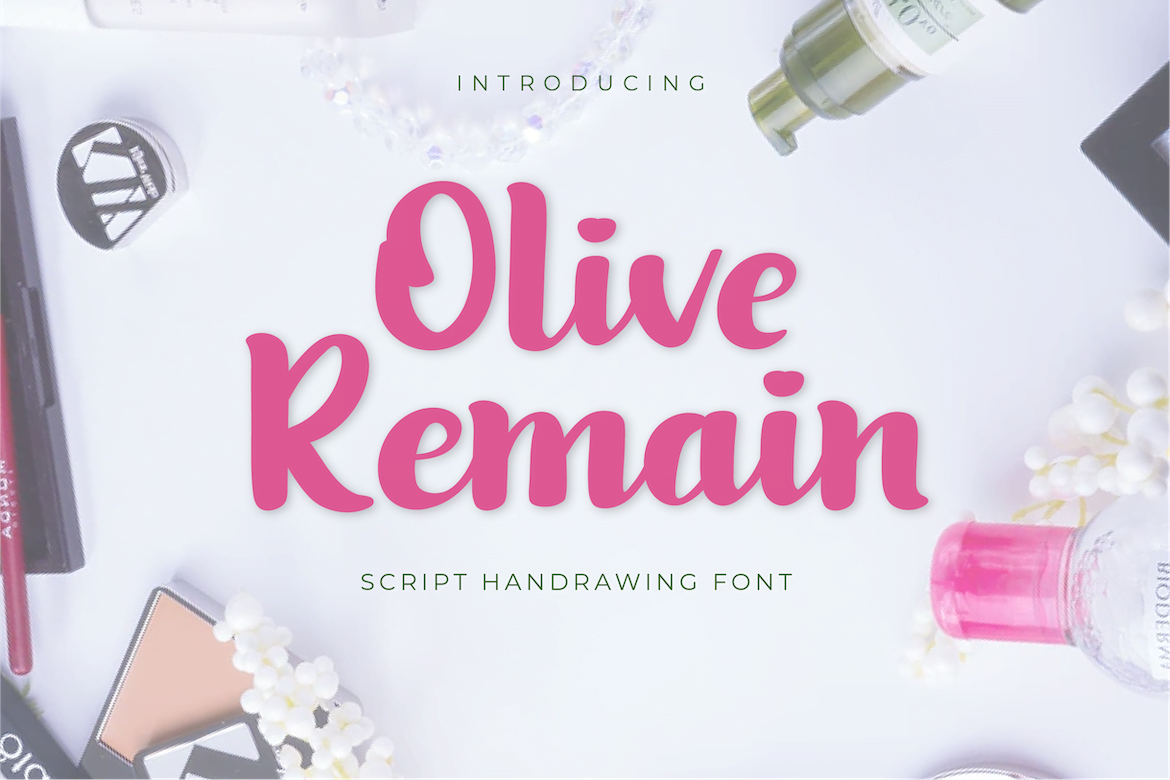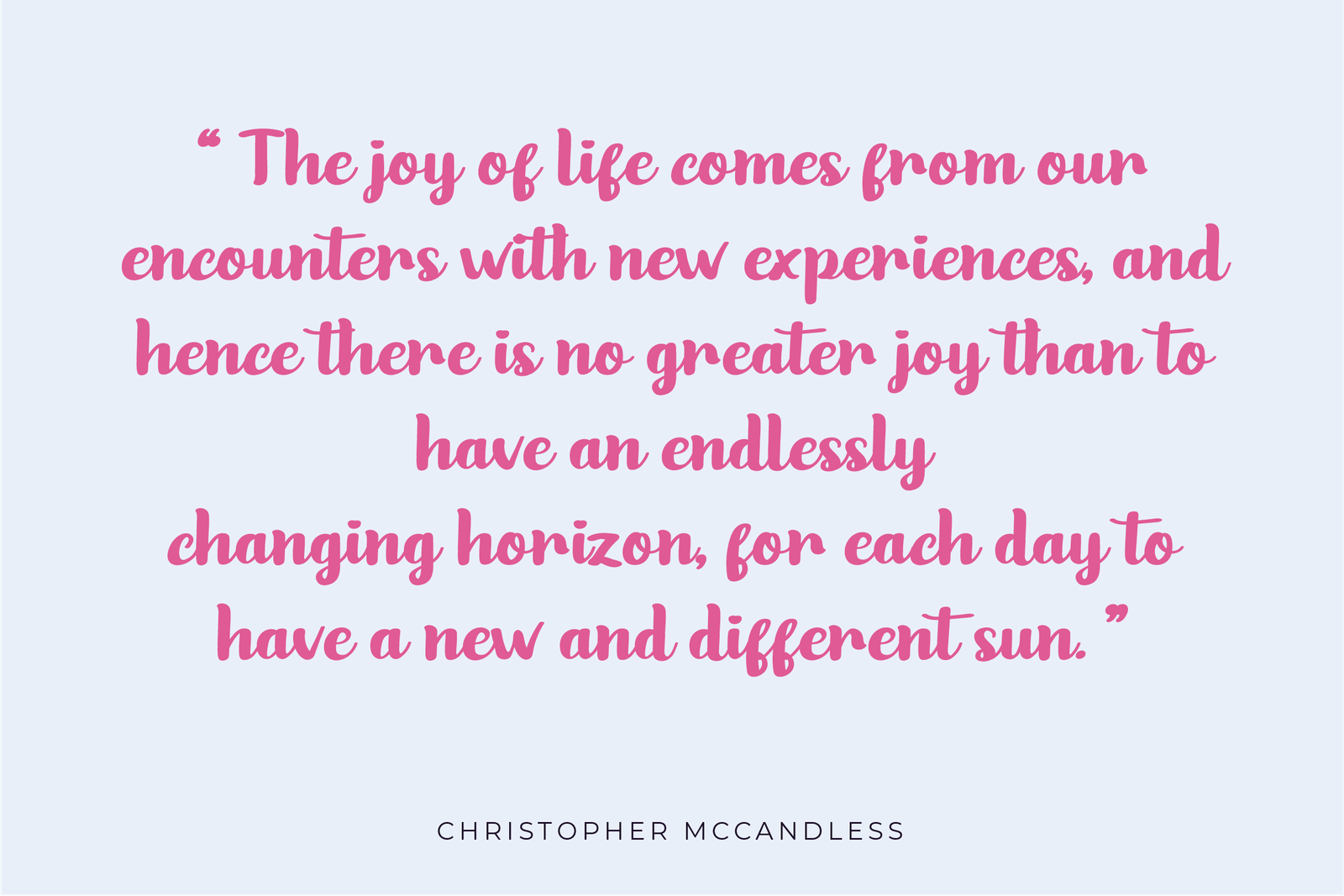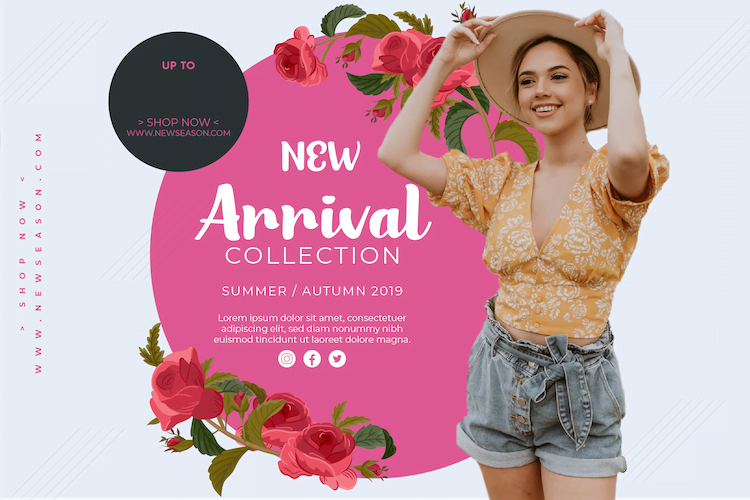
Olive Remain
Olive Remain is a bold handwritten font, carefully handcrafted to become a true favorite. Its casual charm makes it appear wonderfully down-to-earth, readable, and, ultimately, incredibly versatile. Olive Remain will look outstanding in any context, whether it’s being used on busy backgrounds or as a standalone headline! Start creating awesome designs with this font!
This charming font also offers the beauty of abstract typography harmony for a wide variety of design projects, including digital natural handwriting for designs, quote designs, for social media business designs, advertisements, trademarks, food and beverage promotion banners, text, posters, a signature, and all designs require handwriting or whatever design you want.